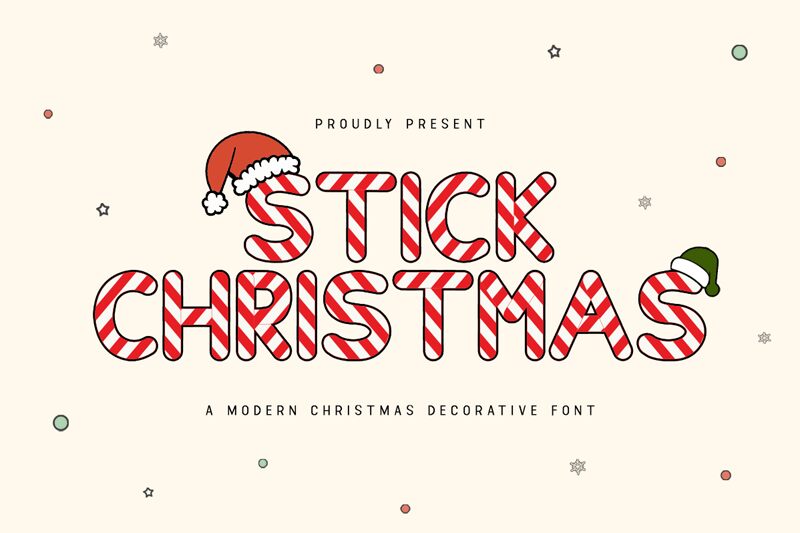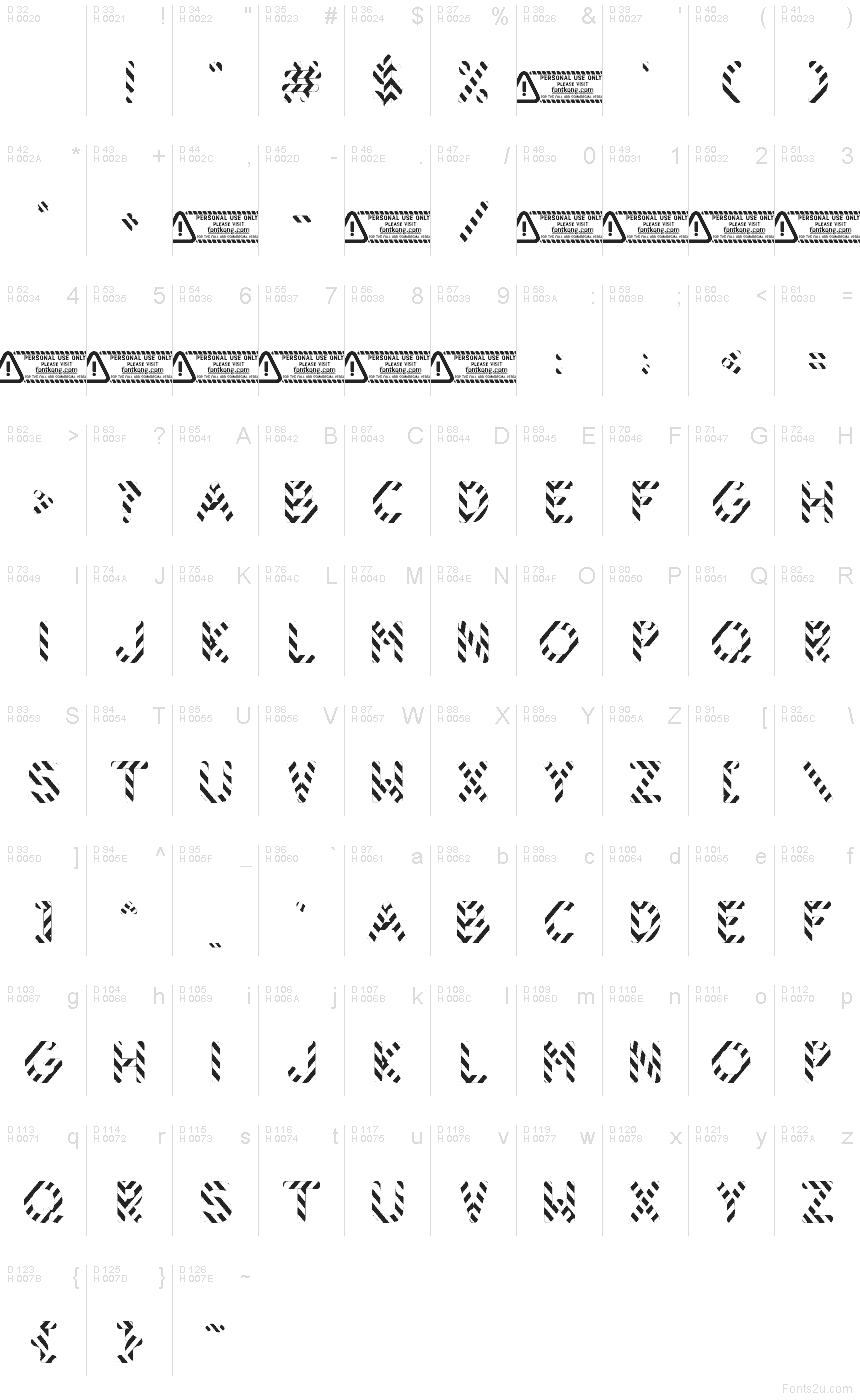
Stick Christmas font by Kong Font is a free holiday decorative typeface that turns every word into striped candy-cane letters. Bold, chunky forms are sliced into diagonal bands, like wrapping paper cut into crisp, graphic shapes. The all-caps style feels playful and modern rather than overly cute, giving your Christmas layouts a strong, readable headline with plenty of seasonal character.
Using Stick Christmas, your titles instantly stand out on greeting cards, party invitations, gift tags, posters, social media graphics, and festive packaging. This free font works best at larger sizes where the striping can really pop, especially in classic red-and-white or icy green palettes. Pair it with a clean geometric sans for body text, and let Stick Christmas handle the loud, joyful moments in your designs.